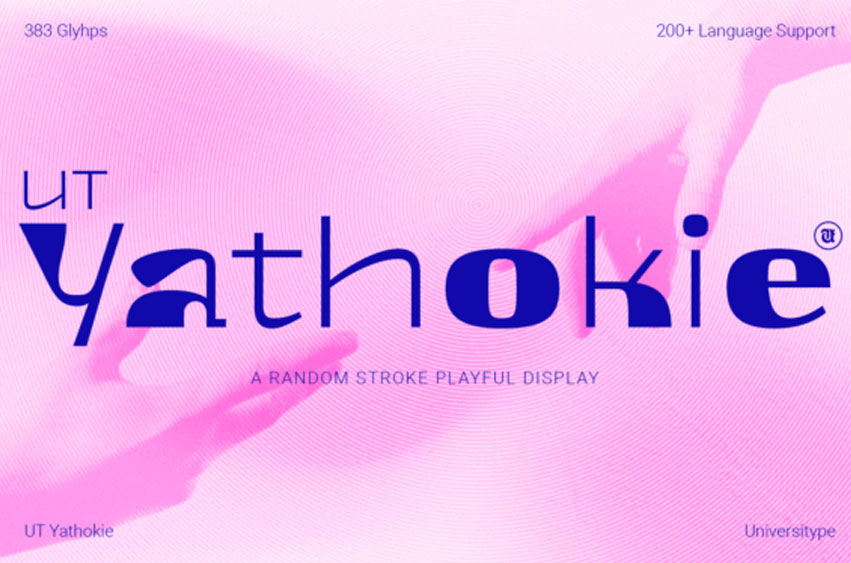
Ut Yathokie Font
Ut Yathokie Font is a sans serif font that challenges expectations. Its eccentric charm adds a striking, unique touch to any creation, making it a vibrant fusion of techno-pop aesthetics and sketchbook creativity. With UT Yathokie, experience a typeface that treads the line between structural formality and a delightful element of surprise.
Whether used for establishing brand identities, crafting visually arresting posters, or simply turning heads, Yathokie stands out and captivates. It redefines rhythm, interrupts uniformity, and lands with discernible clarity every single time.